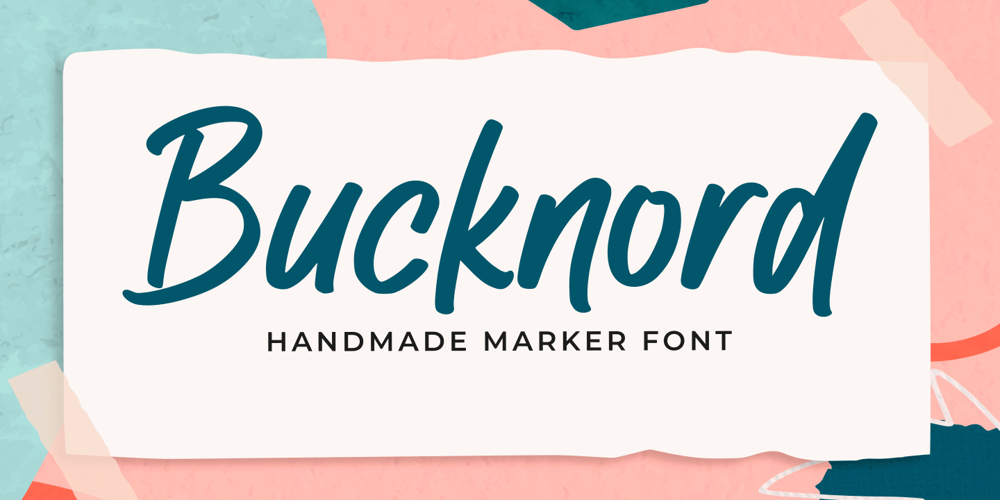
Bucknord Font Family was designed by Faja Abdul Fatah and published by Sibelumpagi. Bucknord contains 1 styles and family package options. Bucknord is a cool and playful handmade marker font. This font is designed to help your needs such as logos, product packaging, invitations, branding, headlines, signage, labels, book covers, posters, quotes, and more.